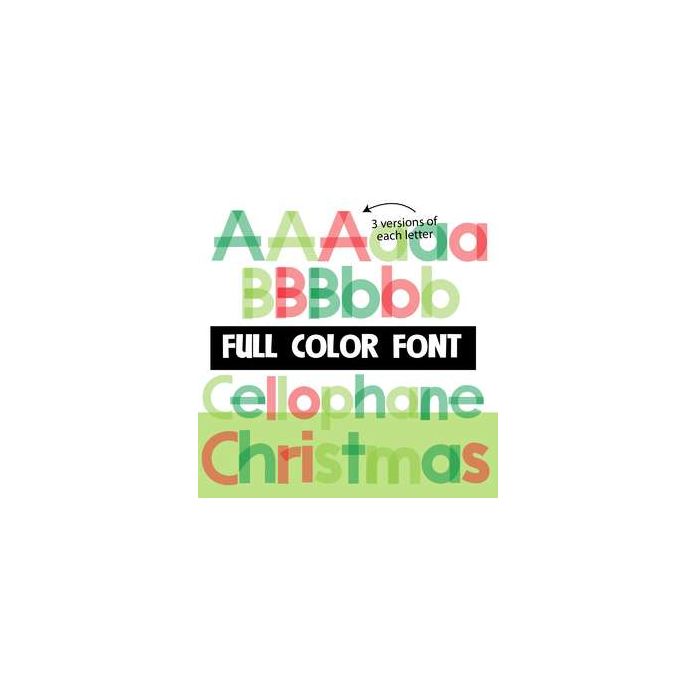
This full-color font features Christmas-colored, transparent lettering. This font has two additional upper and lowercases you can access through your system's character map. This font works best for titles, displays, posters and more. Please note color fonts will show as black in non compatible programs. This font type is compatible with Silhouette Studio.